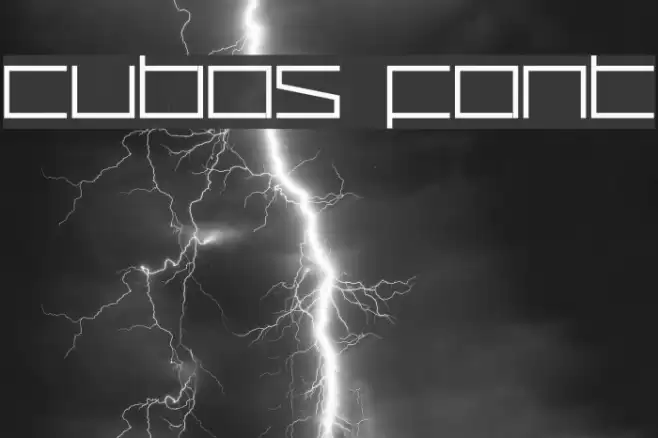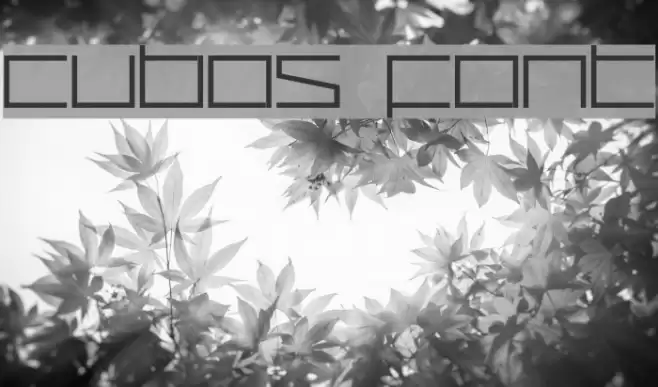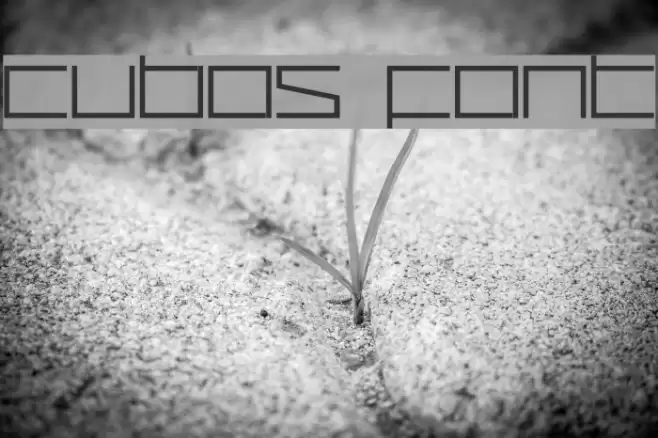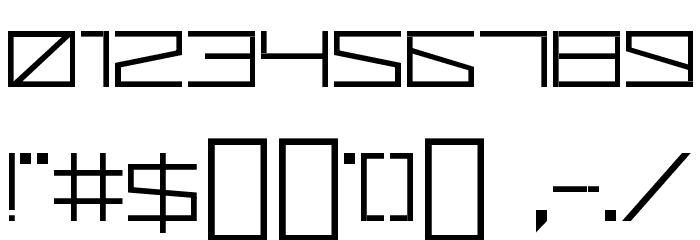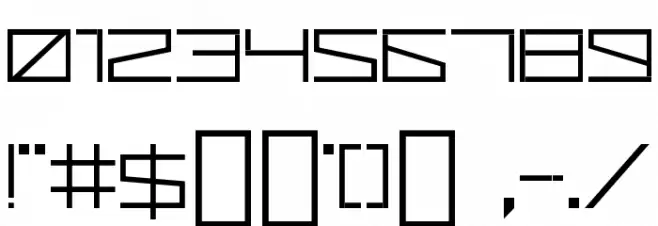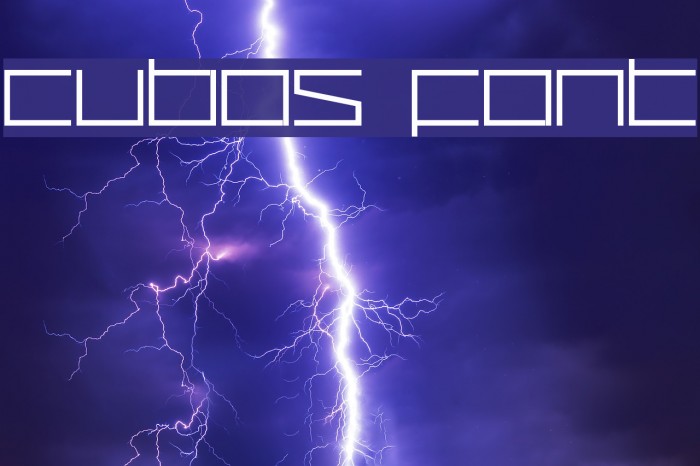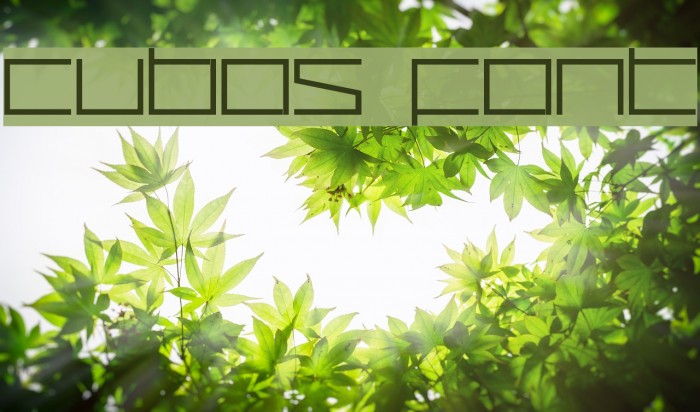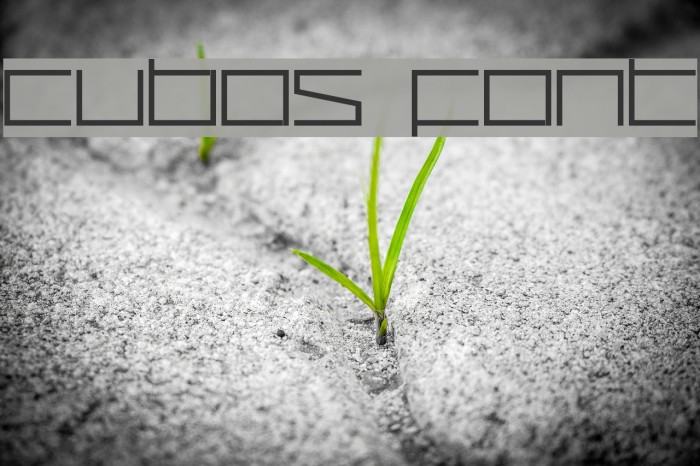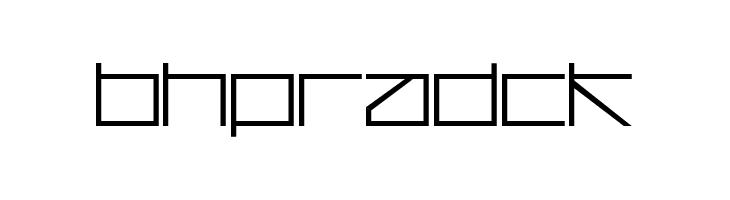
Cubos Font
Cubos Description
This font features a geometric and angular design, characterized by sharp edges and a futuristic aesthetic. The characters are constructed with straight lines and acute angles, giving it a highly modern and digital appearance. The uppercase and lowercase letters maintain a consistent height, contributing to a uniform look. The numerals and special characters follow the same design principles, ensuring coherence across all glyphs. The font's structure is minimalistic yet striking, making it suitable for contemporary and tech-oriented projects. Its unique style stands out, making it ideal for creative and innovative designs.
A geometric, angular font with a futuristic and digital aesthetic from Futuristic fonts.